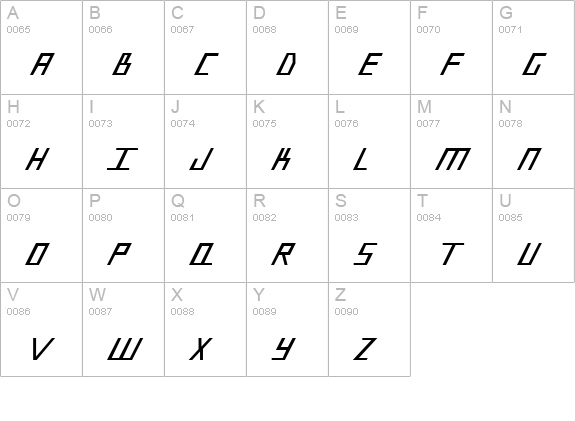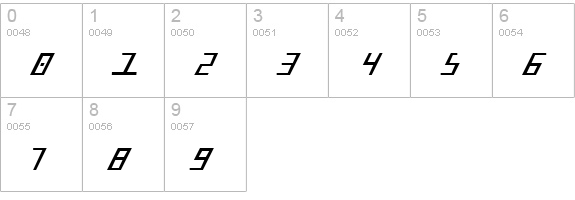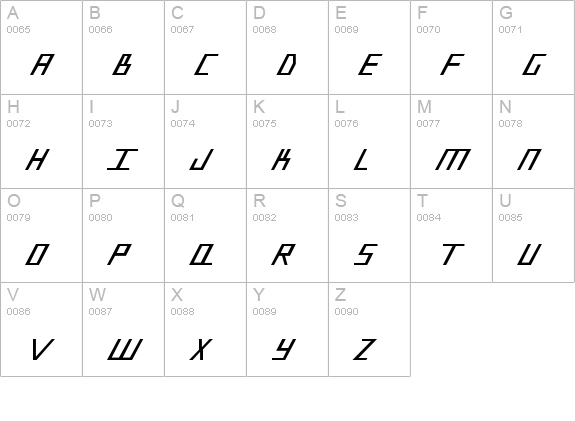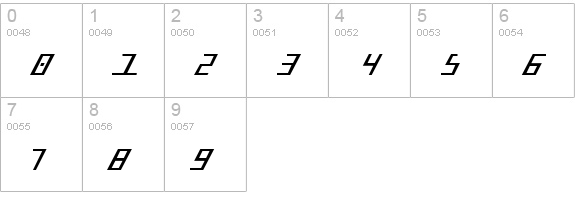
Blue July Bold is a strong, high-contrast variant in the Blue typeface family \xE2\x80\x94 well suited to headlines, attention-grabbing titles, and strong calls-to-action.
Blue July Bold is a captivating and versatile font that exudes a sense of modernity and boldness. Its clean lines and sleek curves make it perfect for a wide range of design projects, from branding to packaging to headlines. The strong presence of the font commands attention and adds a touch of sophistication to any visual composition. What sets Blue July Bold apart is not only its striking aesthetic appeal but also its versatility. Whether you're looking to make a statement with a bold headline or add a touch of elegance to your design, this font has got you covered. Its bold yet refined appearance makes it a great choice for both digital and print applications. And the best part? Blue July Bold is completely free to download at FontsMarket.com. You can easily access this stunning font and incorporate it into your projects without any hassle. So why wait? Elevate your designs with the sleek and modern Blue July Bold font today!